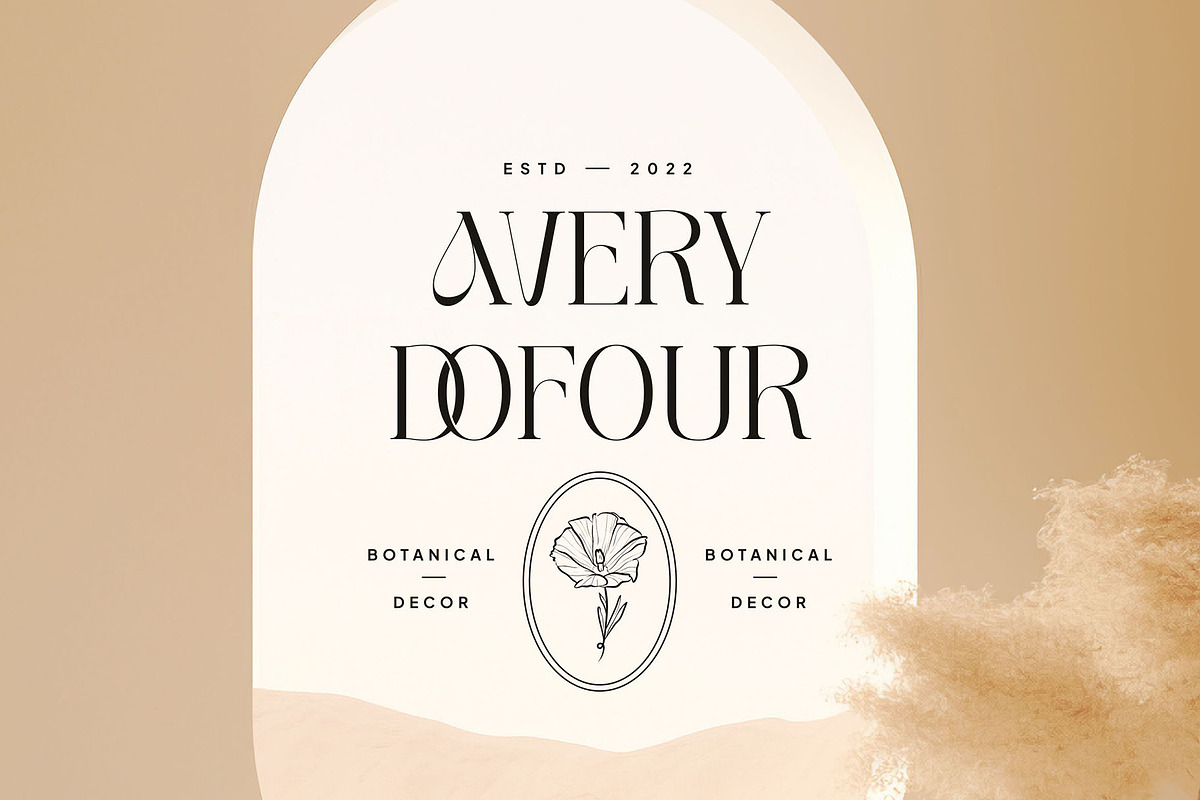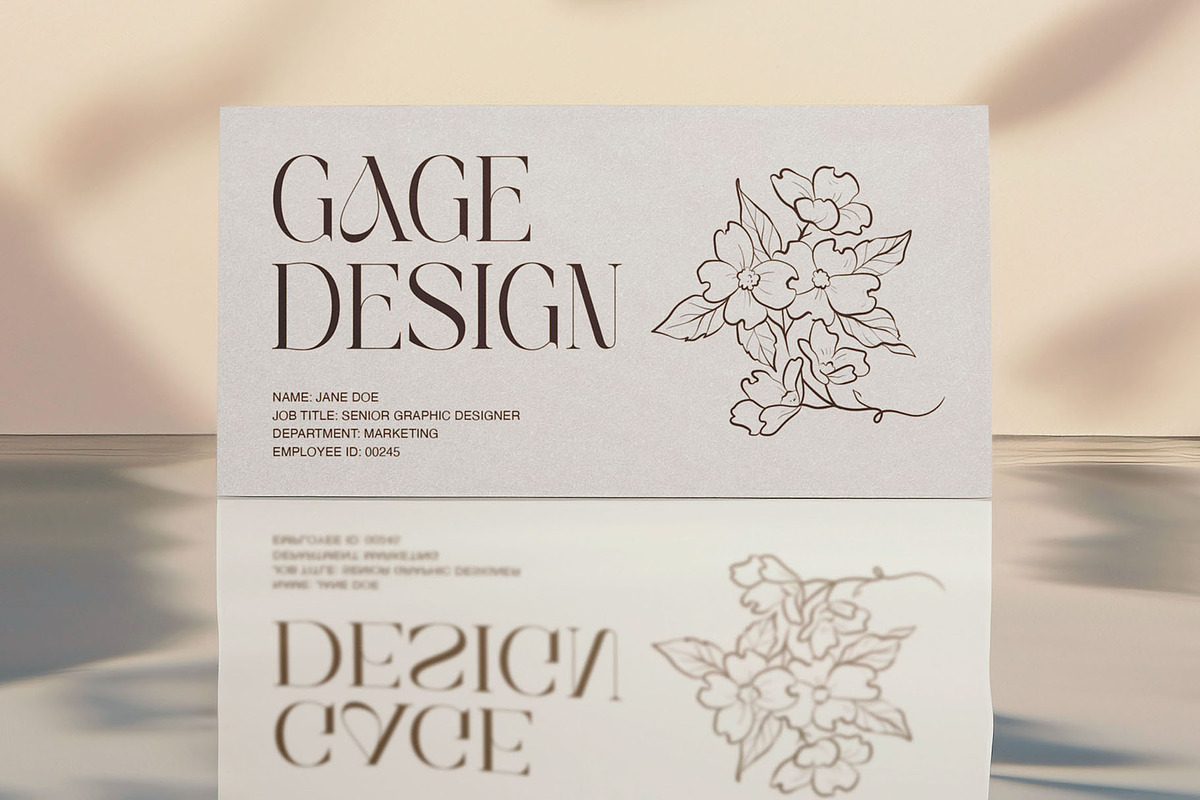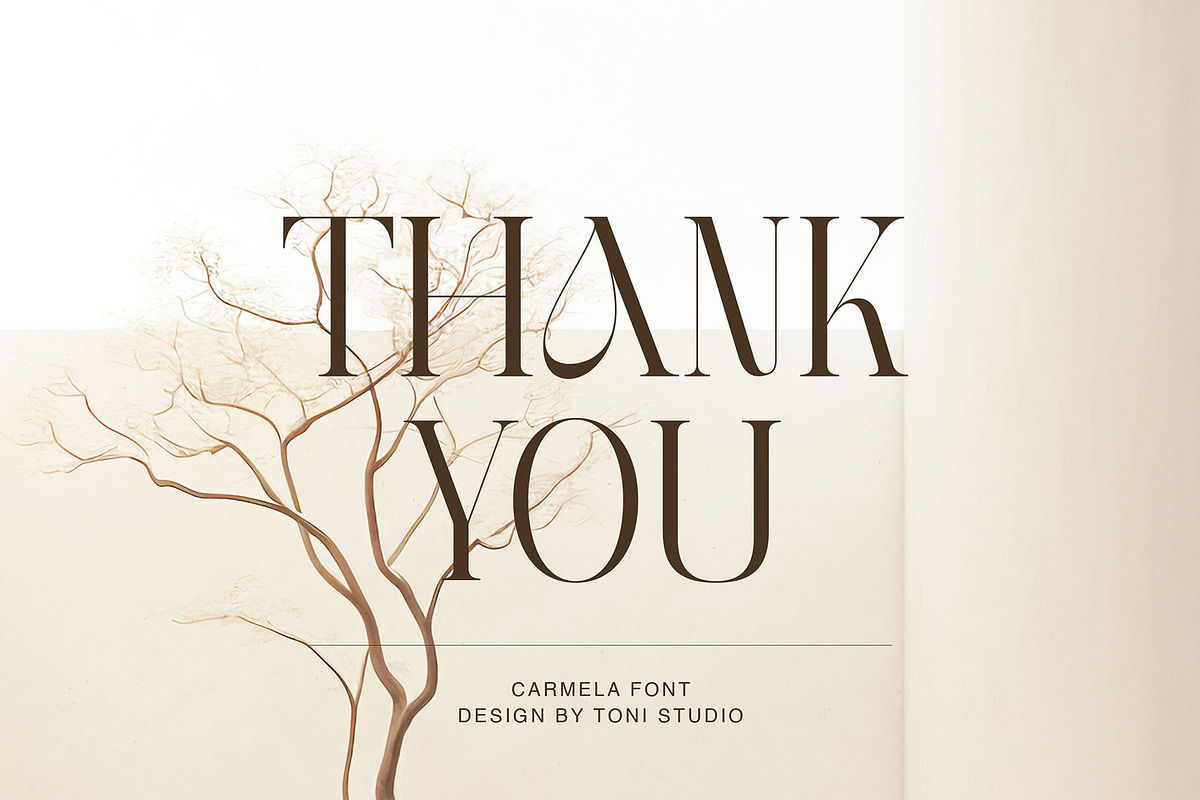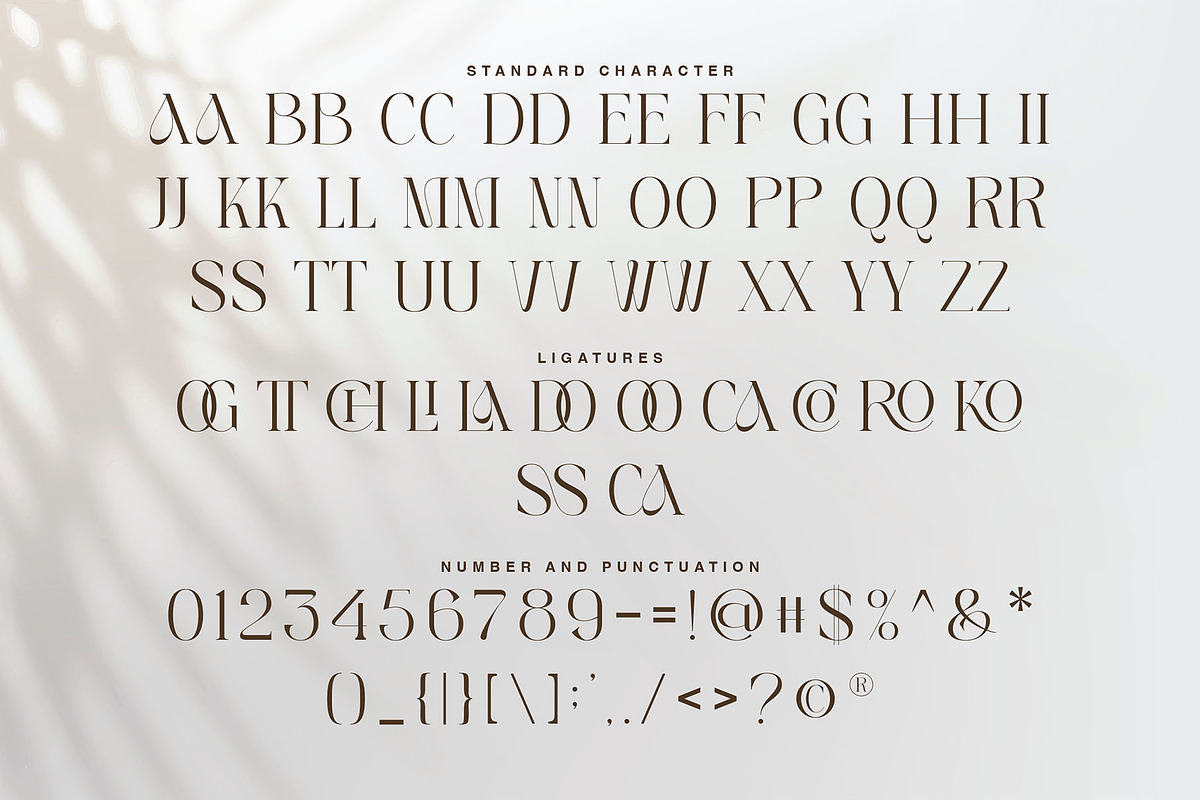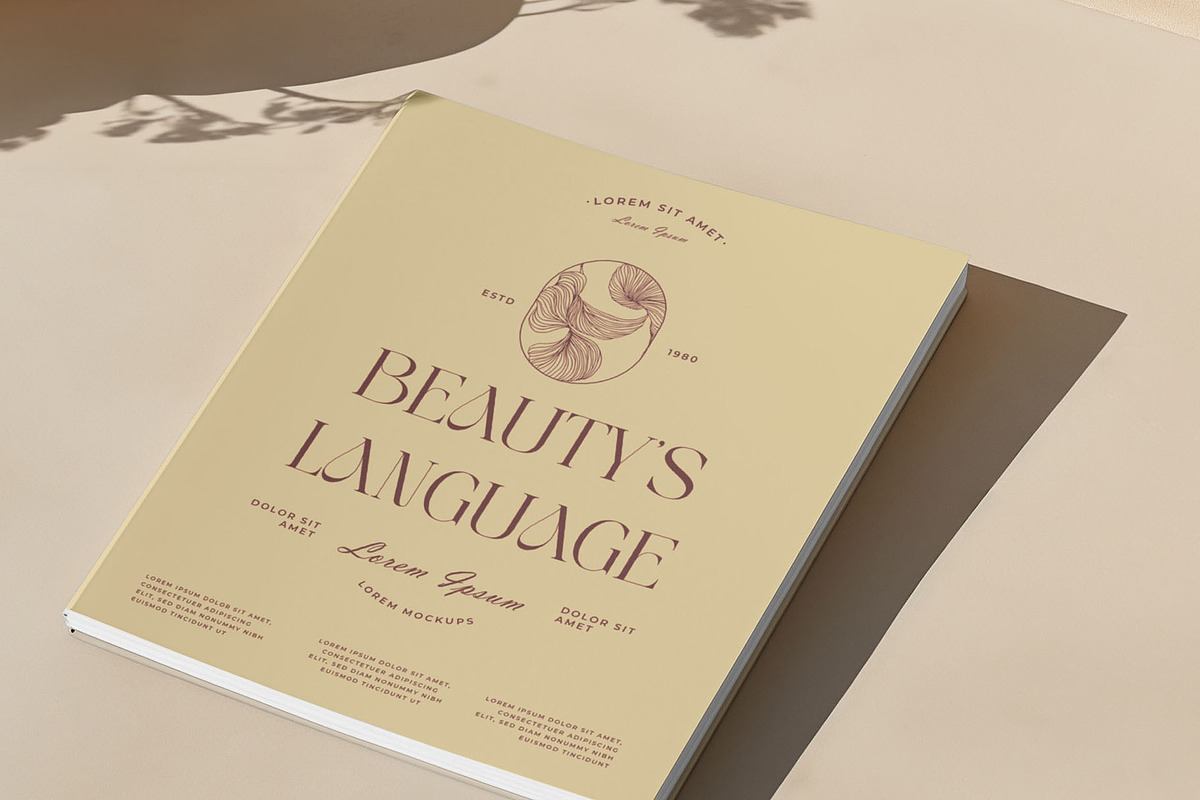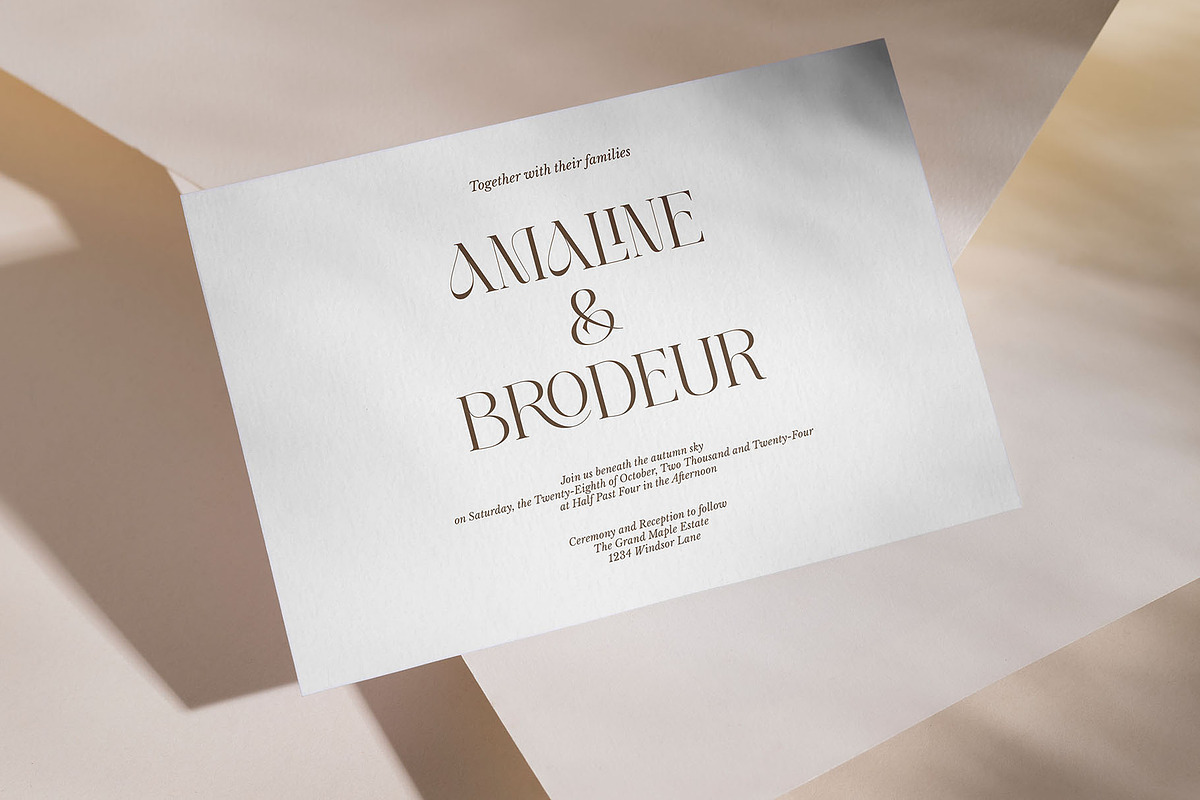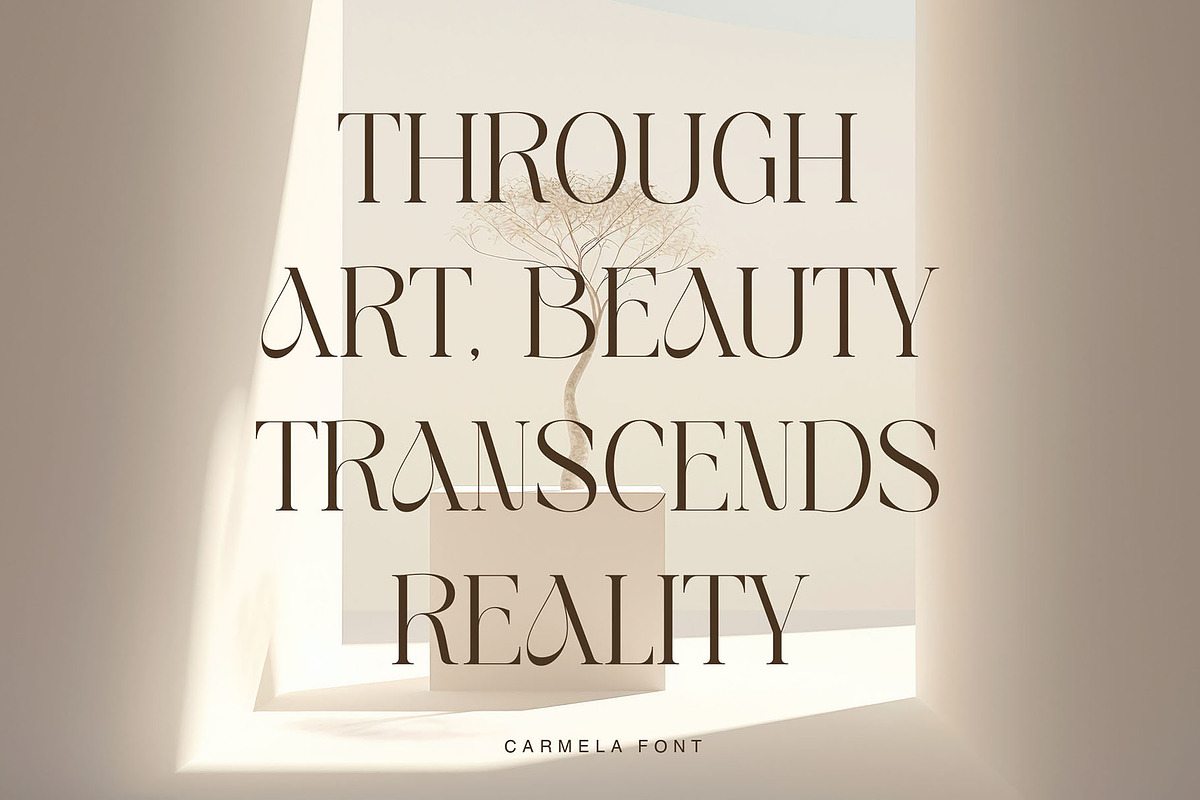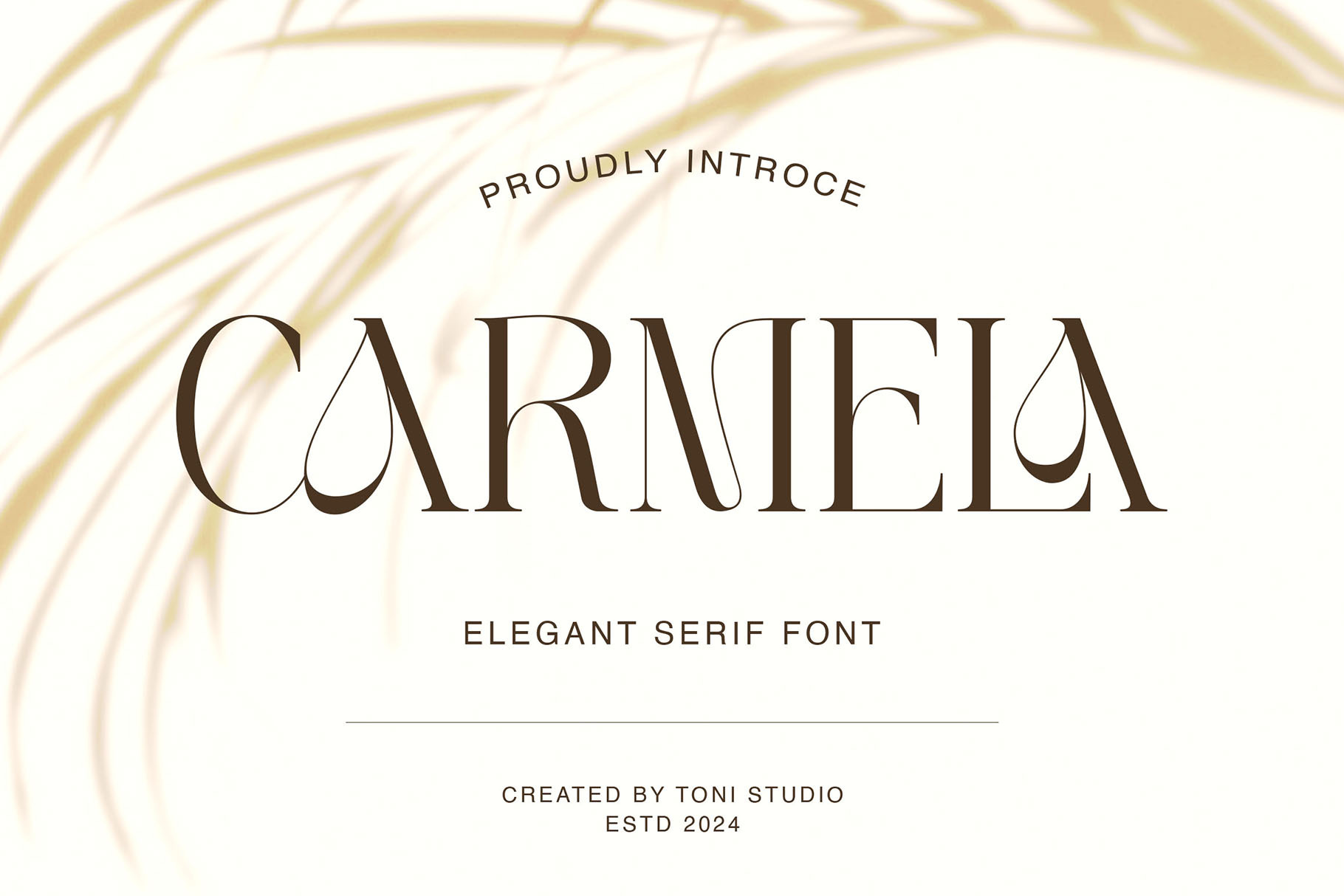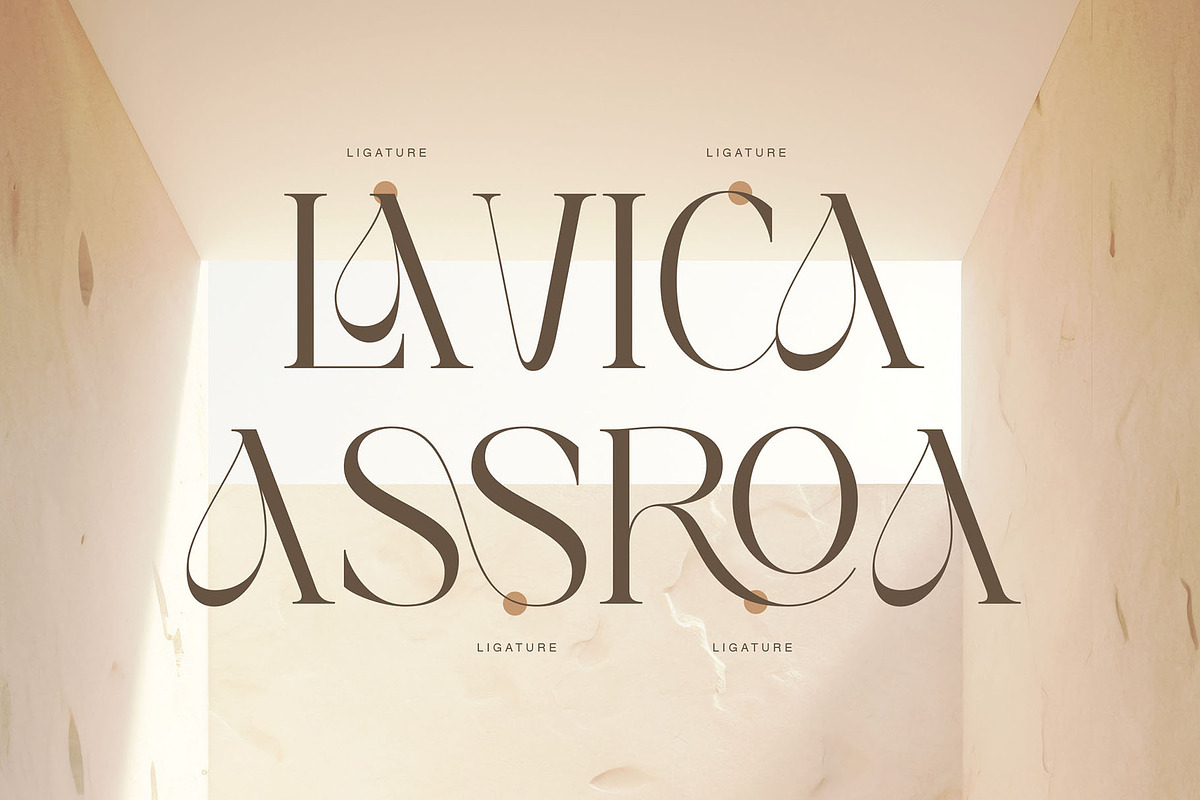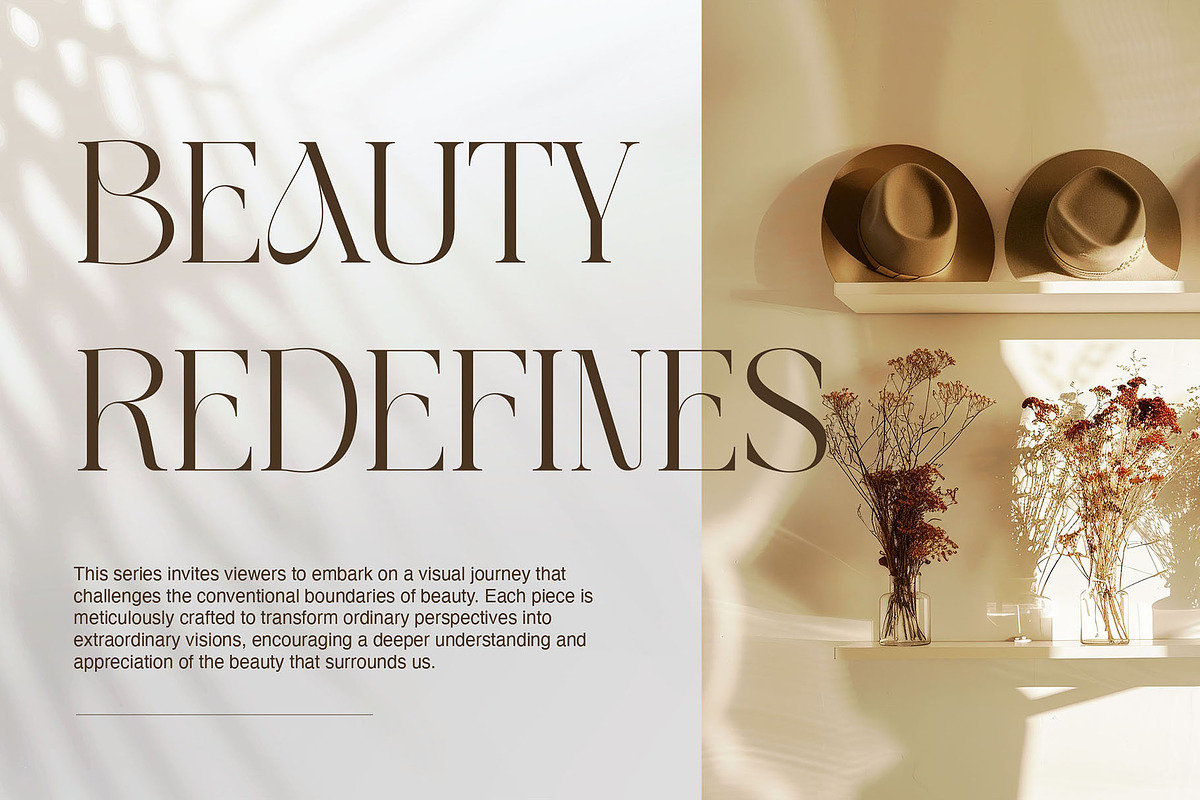
Carmela-Modern and elegant typeface
Carmela is an elegant new serif font that will bring a touch of luxury and style to your projects. It's perfect for logotypes, branding, wedding monograms and invitations, blog titles, and more. Explore all the previews and get great inspiration from the Carmela font.